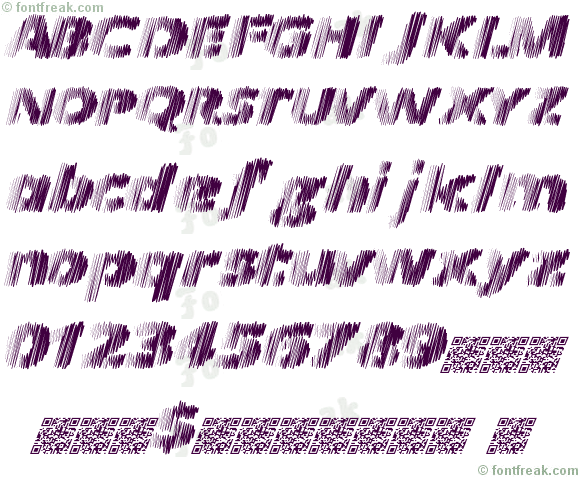
Frequency
About Frequency
Frequency by Xerographer Fonts is a captivating display font that breaks away from traditional design norms. Released in 2013, this freeware font features a unique hand-drawn aesthetic, characterized by its dynamic strokes and textured appearance. The visual style of Frequency is reminiscent of brush lettering, with varying stroke weights that add an organic quality to each character. The contrast between the thicker and thinner sections creates a lively rhythm, making it ideal for projects that aim to stand out.
The spacing in Frequency is thoughtfully designed, allowing for readability while maintaining a playful vibe. The font’s decorative elements evoke a sense of creativity and individuality, making it an excellent choice for various applications. Frequency shines in use cases such as wedding invitations, where its artistic flair can enhance romantic themes; movie posters, where its boldness can capture attention; restaurant menus, adding a touch of personality to the dining experience; and promotional flyers, where eye-catching typography is essential for attracting customers.
Frequency is particularly suited for graphic designers, small business owners, and content creators seeking to infuse their projects with a sense of uniqueness and style. Its versatility allows it to adapt to both modern and vintage aesthetics, making it a valuable addition to any designer's toolkit.
What sets the Frequency font apart is its ability to convey emotion through its distinctive design. The irregularities and textures inherent in its strokes give it a warmth that digital fonts often lack. Whether you're crafting a heartfelt invitation or an attention-grabbing advertisement, the Frequency font free download offers an appealing solution that resonates with creativity and individuality. Embrace the artistry of Frequency and elevate your typography game today.